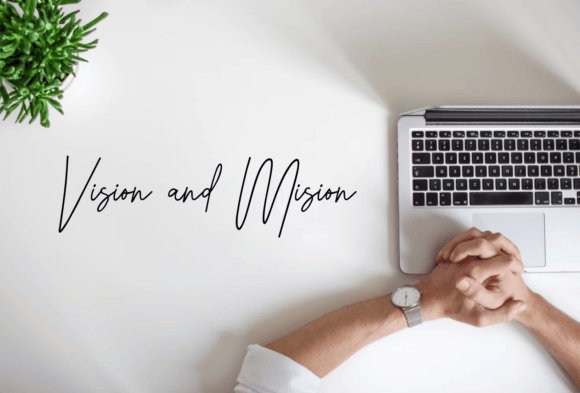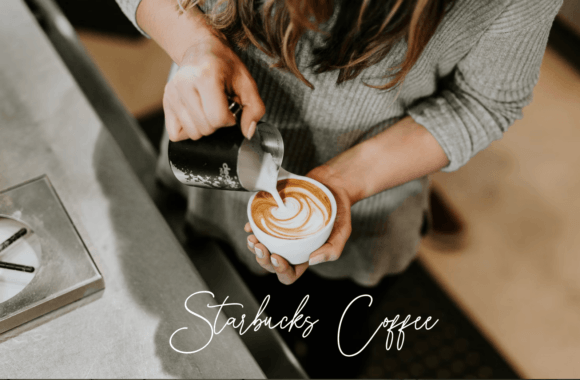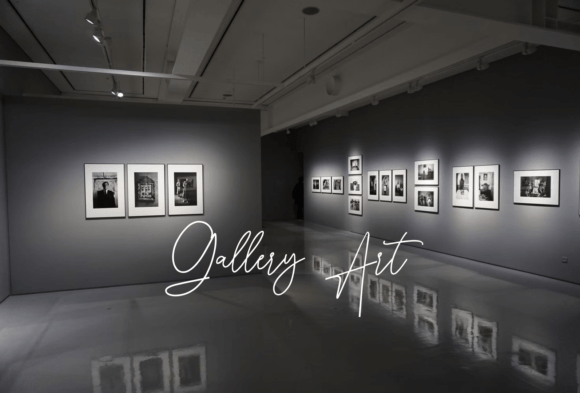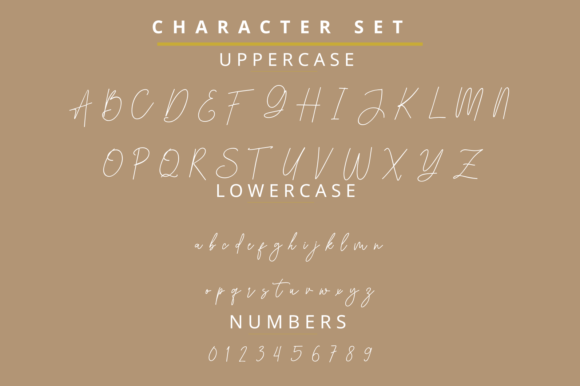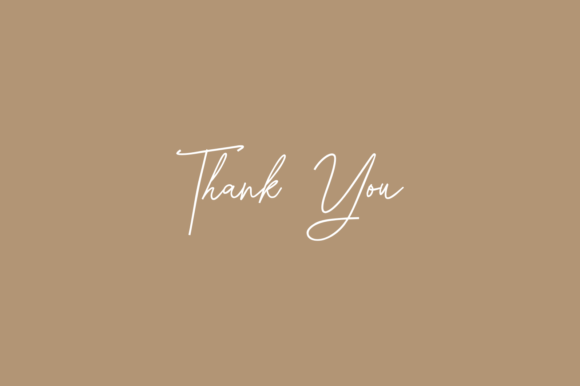
Gnome Signature Font: Elevate Your Designs with Elegance
In the world of typography, a font can make or break the aesthetic of a project. For designers and crafters seeking to add a touch of sophistication and class to their work, the Gnome Signature Font is an excellent choice. This elegant script font is designed to bring a delicate and refined look to your projects, making it perfect for a wide range of applications.
The Characteristics of Gnome Signature Font
Gnome Signature Font is characterized by its balanced and varied design. It is not too thin, nor too thick, making it versatile and easy to read. The font features a unique blend of classic and modern elements, resulting in a truly distinctive look. The delicate strokes and refined lines of Gnome Signature Font make it an ideal choice for projects that require a high level of elegance and sophistication.
Key Features of Gnome Signature Font
- Elegant Script Design: Gnome Signature Font boasts a beautiful script design that adds a touch of class to any project.
- Balanced and Varied: The font’s balanced and varied design makes it easy to read and versatile for different applications.
- Delicate and Refined: The delicate strokes and refined lines of Gnome Signature Font make it perfect for projects that require a high level of elegance and sophistication.
- Easy to Read: Despite its elegant design, Gnome Signature Font is easy to read, making it suitable for body text and headings.
Uses of Gnome Signature Font
Gnome Signature Font is a versatile font that can be used in a wide range of projects, including:
- Branding and Logo Design: The elegant design of Gnome Signature Font makes it perfect for branding and logo design.
- Wedding and Event Stationery: The font’s delicate and refined look makes it ideal for wedding and event stationery, such as invitations and programs.
- Packaging Design: Gnome Signature Font can add a touch of sophistication to packaging design, making it perfect for luxury brands.
- Digital Design: The font’s clear and readable design makes it suitable for digital design, including websites and social media graphics.
Why Choose Gnome Signature Font?
With so many fonts available, why choose Gnome Signature Font? Here are a few reasons:
- Unique Design: Gnome Signature Font has a unique and distinctive design that sets it apart from other fonts.
- High-Quality: The font is designed to high standards, ensuring that it looks great in any project.
- Versatile: The font’s versatility makes it suitable for a wide range of projects and applications.
In conclusion, Gnome Signature Font is an excellent choice for designers and crafters seeking to add a touch of elegance and sophistication to their projects. With its delicate and refined design, balanced and varied strokes, and easy-to-read lines, this font is perfect for a wide range of applications. Whether you’re working on branding and logo design, wedding and event stationery, packaging design, or digital design, Gnome Signature Font is sure to elevate your work to the next level.